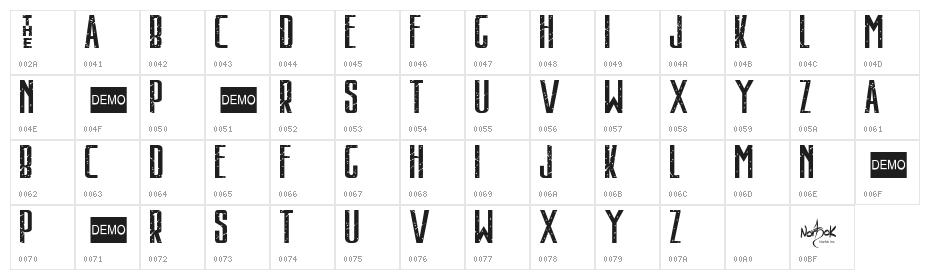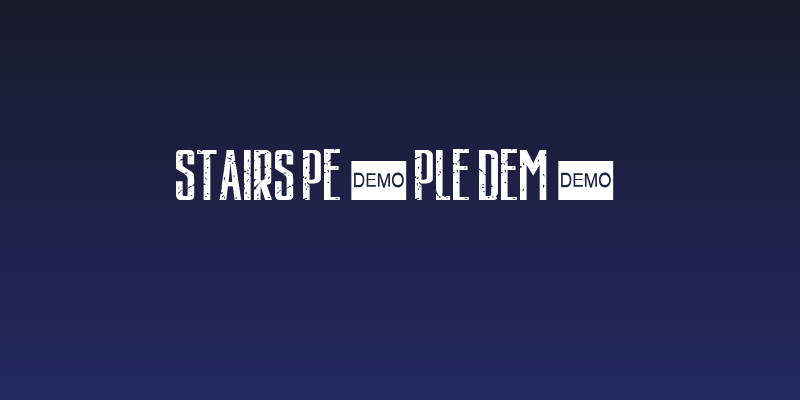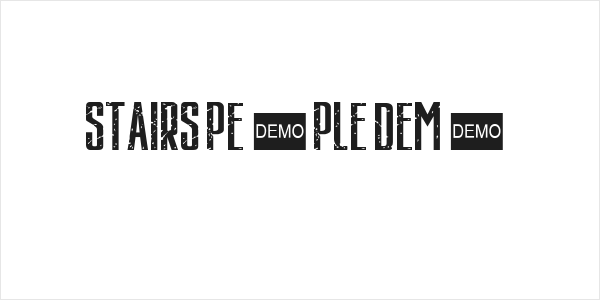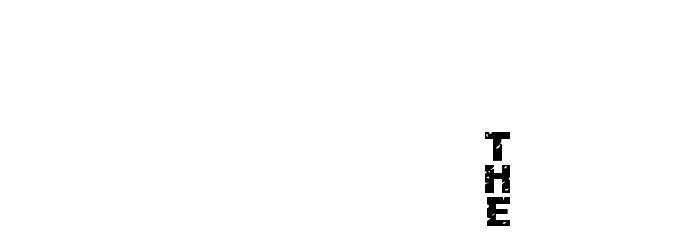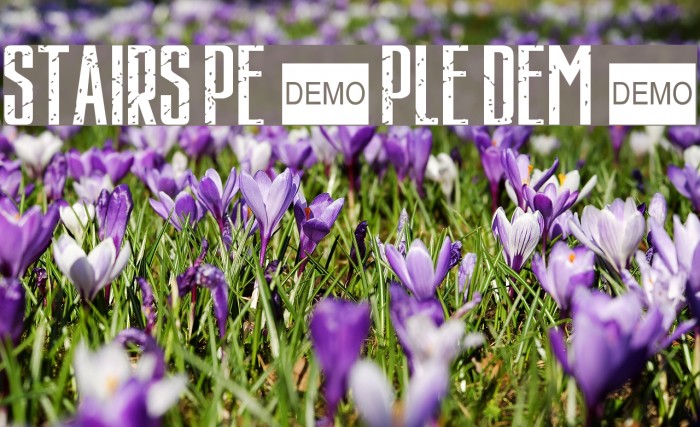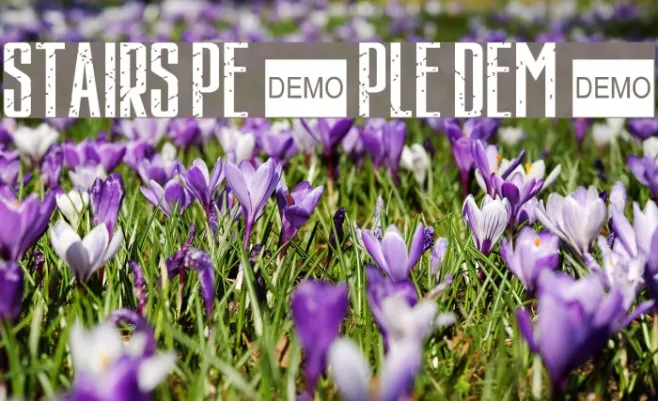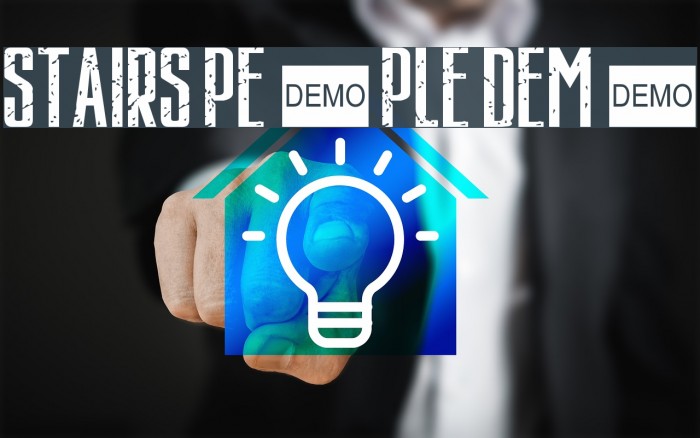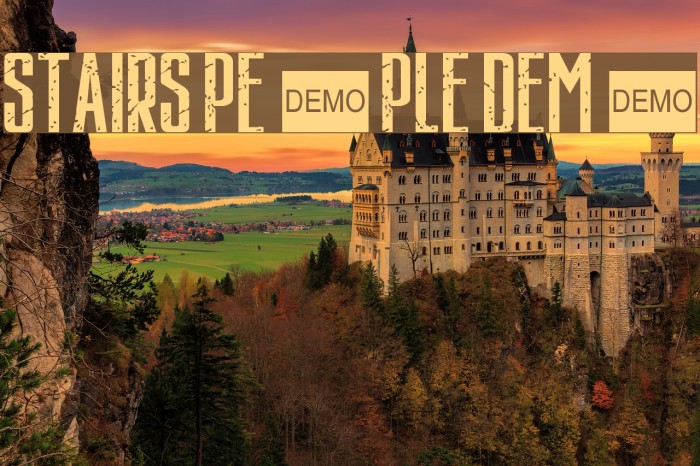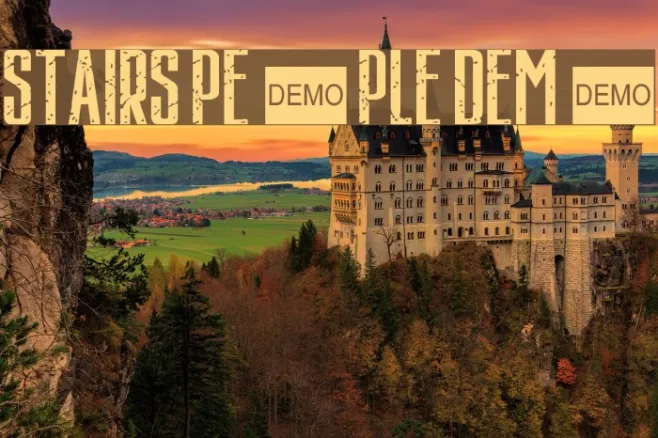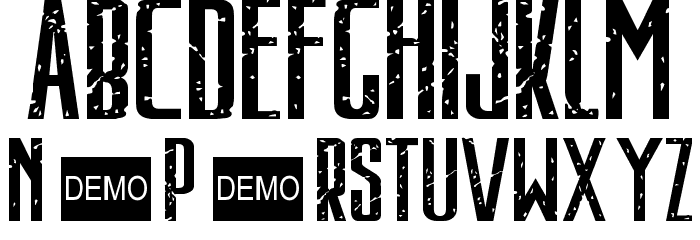
Stairs People DEMO Font
Stairs People DEMO Description
This font features a bold, distressed style with a rugged, textured appearance that gives it a worn, vintage feel. The uppercase letters are tall and narrow, with a consistent height and width, creating a uniform look. The distressed effect adds character and depth, making it ideal for projects that require a rustic or industrial aesthetic. The font's design is reminiscent of old signage or stenciled lettering, which adds to its charm and versatility. It is particularly suited for use in branding, posters, and other creative projects where a bold statement is needed.
| Overall Style | Vintage |
| Proposed Projects | Ideal for branding, posters, vintage-themed designs, and industrial-style projects. |